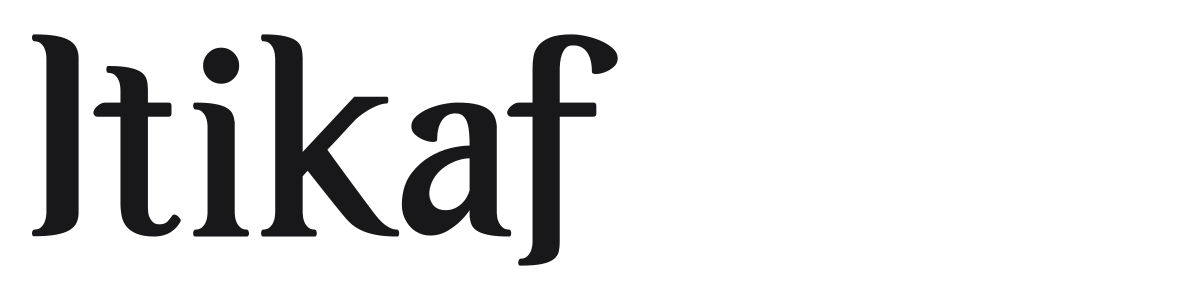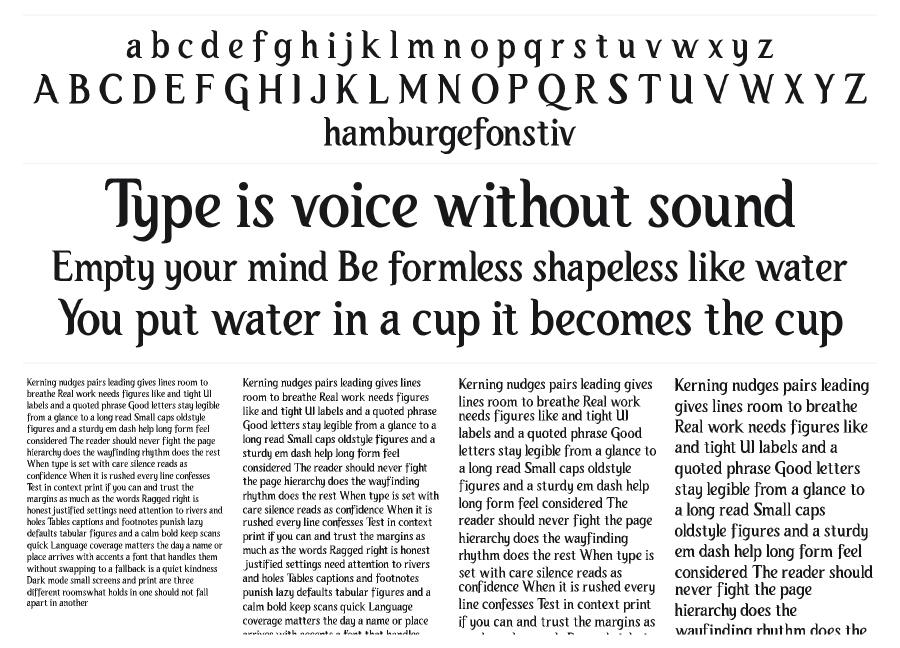
Itikaf
by InspiraType
Itikaf is a high-contrast display serif drawn by hand and inspired by classic poster typography. Thick stems meet hairline thins with the kind of calligraphic confidence you'd find in vintage label and logotype work. The design comes loaded with alternates, ligatures, and swashes, giving designers plenty of room to customize.